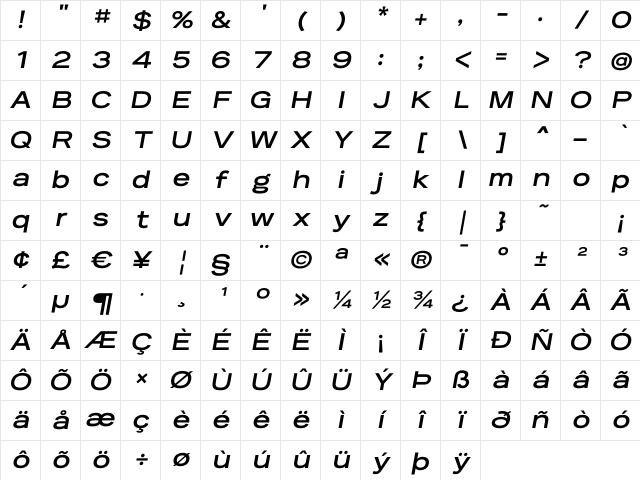
Reservation Wide Bold Oblique
Style: Bold Oblique
Foundry: Silas Dilworth
Designer: Silas Dilworth
Reservation Wide Family
Reservation Wide Bold Oblique
Design Context for Reservation Wide
Reservation Wide is a composed and adaptable typeface that performs quietly and consistently across a wide range of design contexts. The slanted form adds forward momentum and visual energy. Its bold stroke weight gives it real presence on the page.
Pro Tip: Use Reservation Wide for emphasis, pull quotes, and subheadings where its slanted energy can add rhythm to the layout.